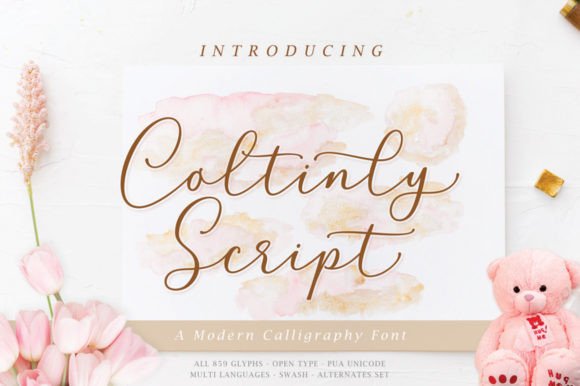
Step into the realm of storytelling with Coltinly Script Font, a captivating script typeface that breathes life into your tales. Crafted by gianstudio12, this modern calligraphy font dances with an irregular baseline, adding a touch of dynamism to your words. Dive into the mesmerizing world of Coltinly, a font family designed to ignite the imagination and leave an indelible mark on your readers.
Unleash your creativity with a font that's as versatile as your stories. Whether you're weaving enchanting wedding invitations, heartfelt greeting cards, or captivating correspondence, Coltinly Script Font is your perfect companion. Its elegant, flowing lines add a touch of grace and sophistication to any project, inviting readers to immerse themselves in your narratives.
With Coltinly, you'll find a script font that's more than just a collection of letters. It's an art form, a medium through which your stories take flight. Each letter is meticulously crafted to convey emotion, evoking a symphony of feelings in the hearts of your readers. Experience the magic of Coltinly and watch your words transform into an unforgettable symphony of emotions.
Journey through the depths of Coltinly's character set, where you'll encounter an array of OpenType features and ligatures, accessible with ease thanks to its PUA encoding. Discover a treasure trove of glyphs, each waiting to be explored and incorporated into your storytelling adventures. Unleash your imagination and create captivating designs that resonate with your audience.
Coltinly Script Font isn't merely a font; it's an invitation to embark on an extraordinary storytelling expedition. Whether you're a seasoned writer, an aspiring author, or simply someone with a tale to tell, Coltinly provides the perfect canvas to showcase your creativity. Embark on a journey where words dance with beauty, meaning, and emotion. Coltinly Script Font awaits, ready to transform your stories into timeless masterpieces.